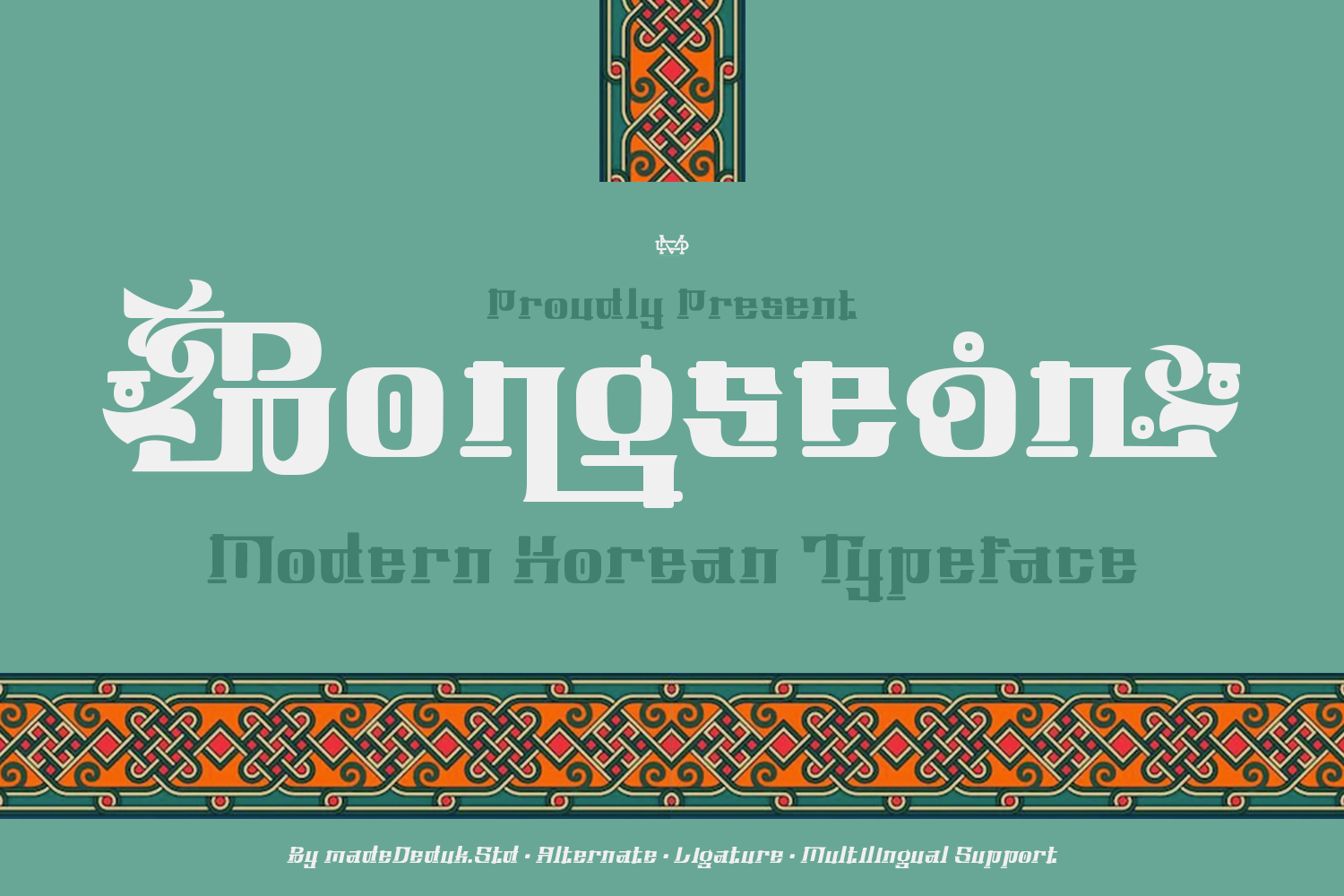
Korean Vibes - Korean Font it matches applies in some designs such as the logotype, brand, packaging, quotes, poster, t-shirt, invitation and more custom design. The features uppercase, lowercase, numeral, punctuation & symbol, multilingual support.rush